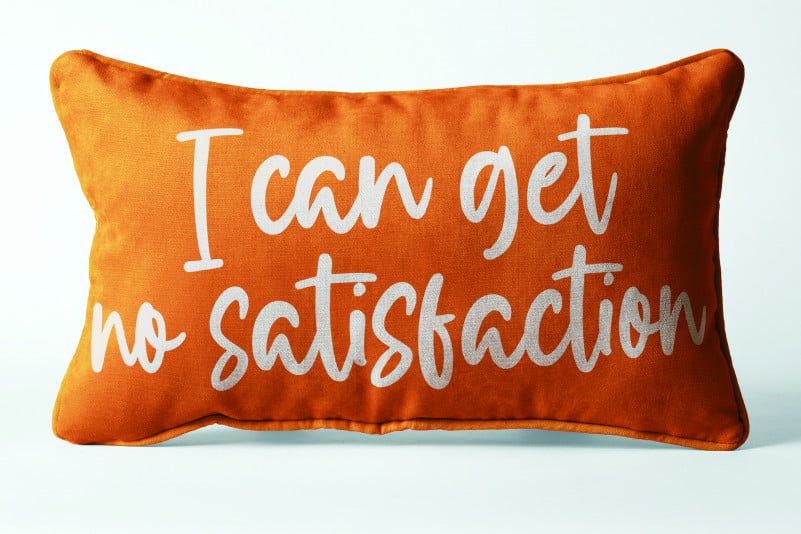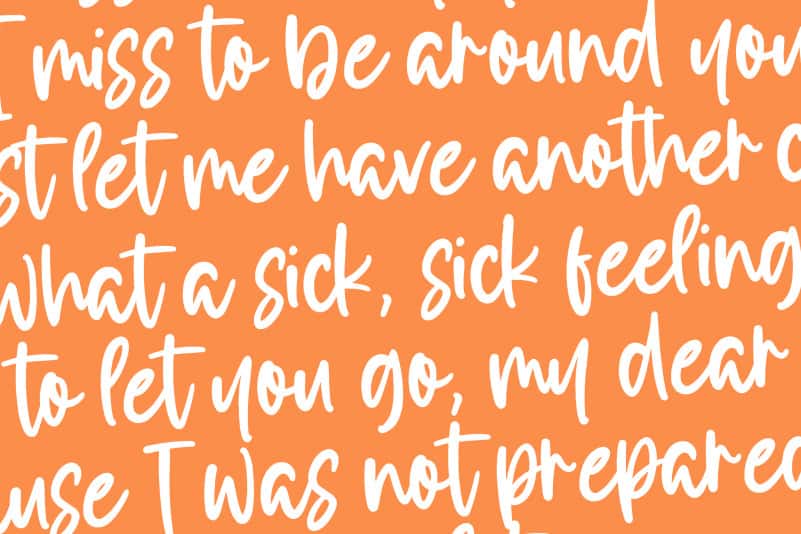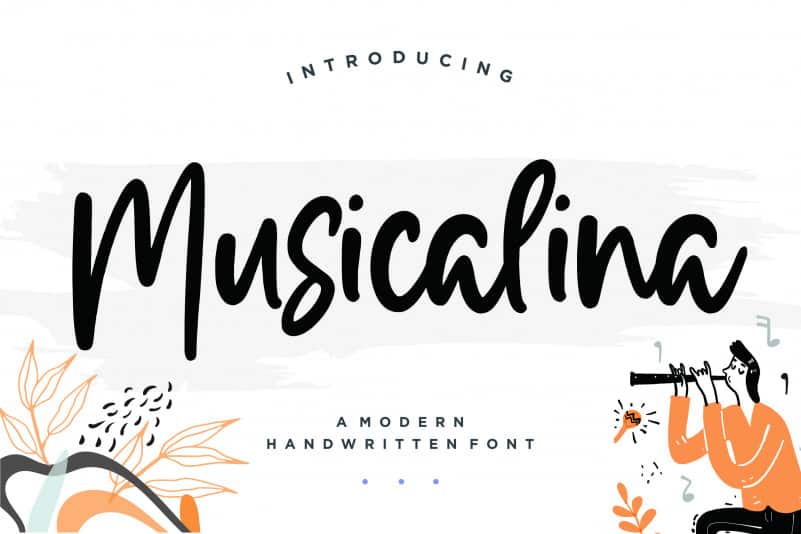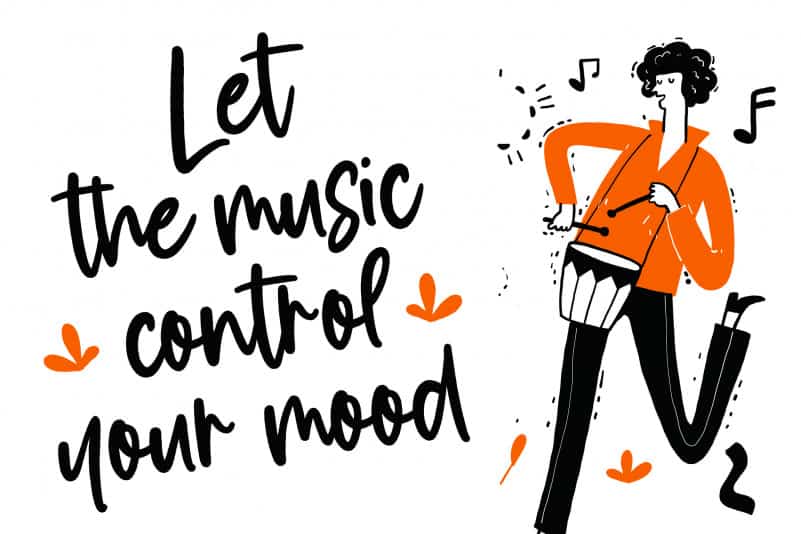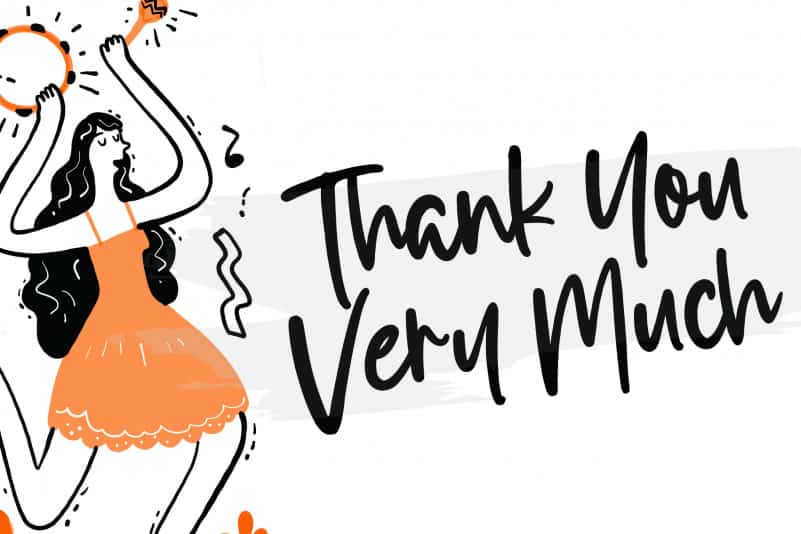
Musicalina Modern Handwritten Font
Proudly Present, Musicalina Modern Handwritten Font.
Musicalina is a Modern Handwritten font.
It is perfect for product packaging, branding project, megazine, social media, wedding, or just used to express words above the background.